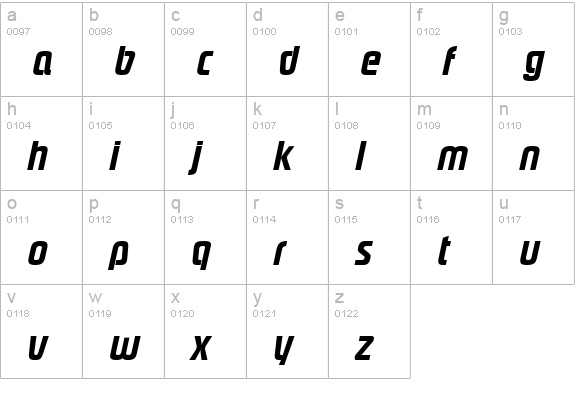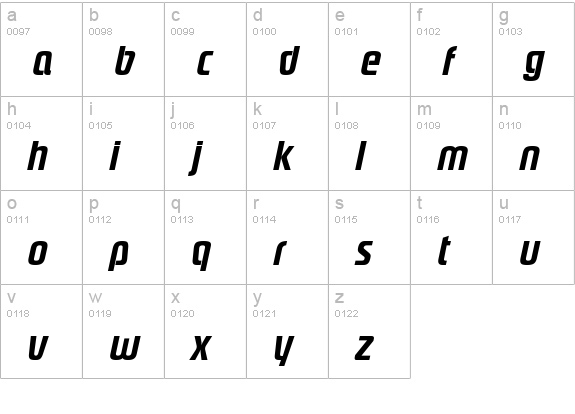
PloverExtrabold Italic Font Details
PloverExtrabold Italic is a distinctive, italic variant in the PloverExtrabold typeface family \xE2\x80\x94 well suited to design and typography projects.
PloverExtrabold Italic is a striking and bold font that exudes confidence and modernity. Its italicized design adds a touch of elegance and flair to any text or design project. The sleek and sharp lines of this font make it perfect for making a statement or standing out from the crowd. Best of all, PloverExtrabold Italic is available for free download at FontsMarket.com. Whether you're looking to elevate your branding, create eye-catching headlines, or simply add a touch of sophistication to your designs, this font is a fantastic choice. Don't miss out on the opportunity to enhance your projects with this dynamic and versatile typeface, all at no cost to you. Download PloverExtrabold Italic today and take your designs to the next level!